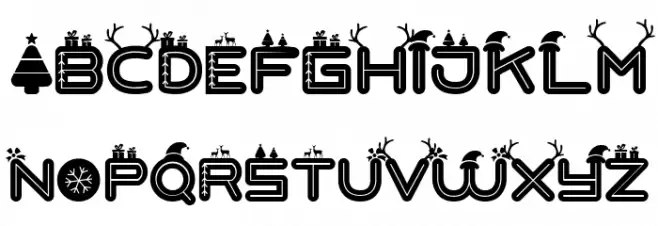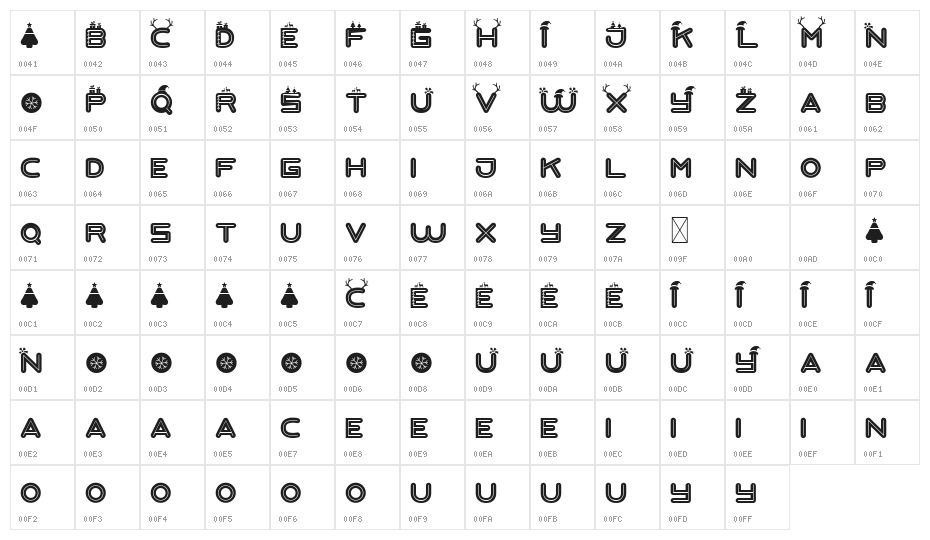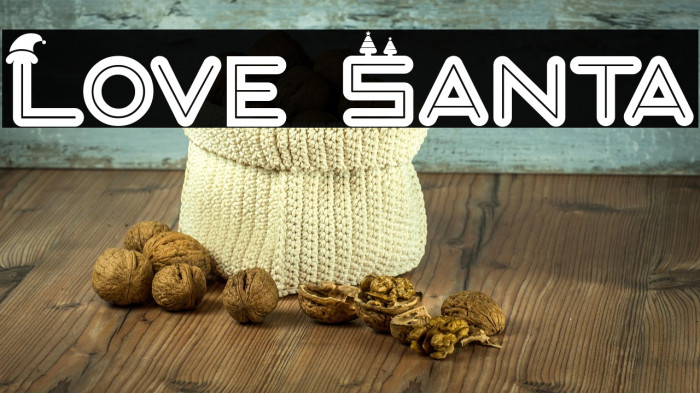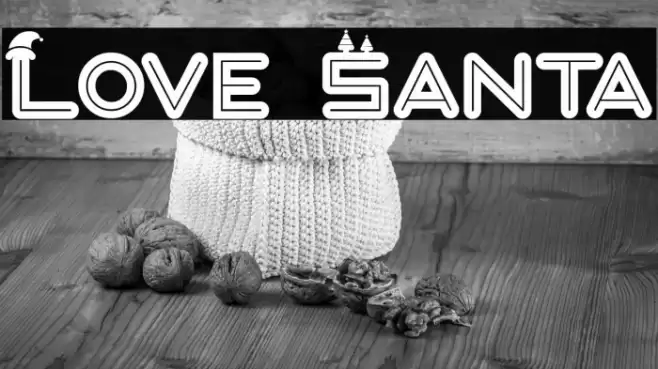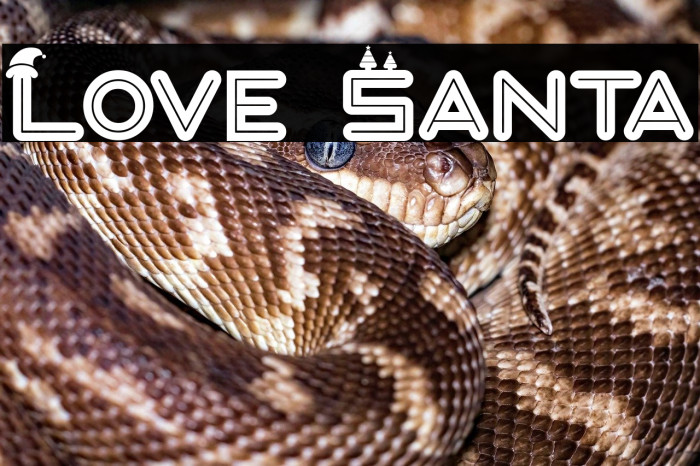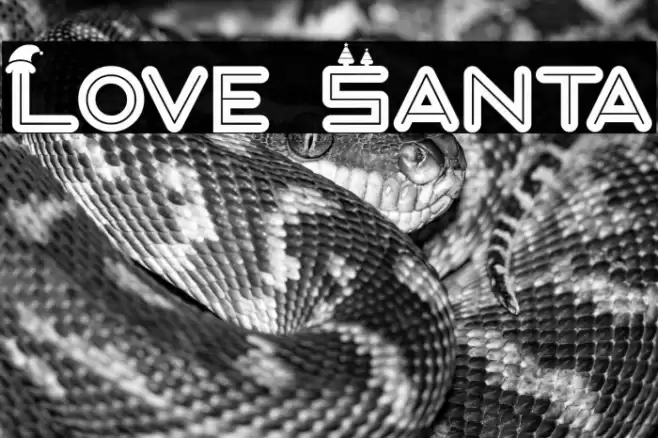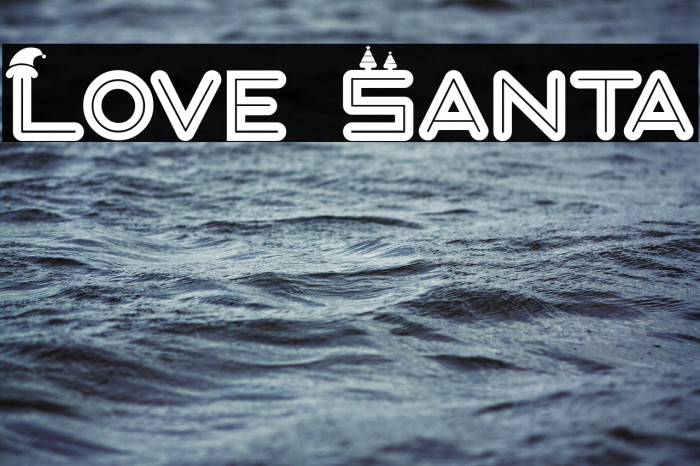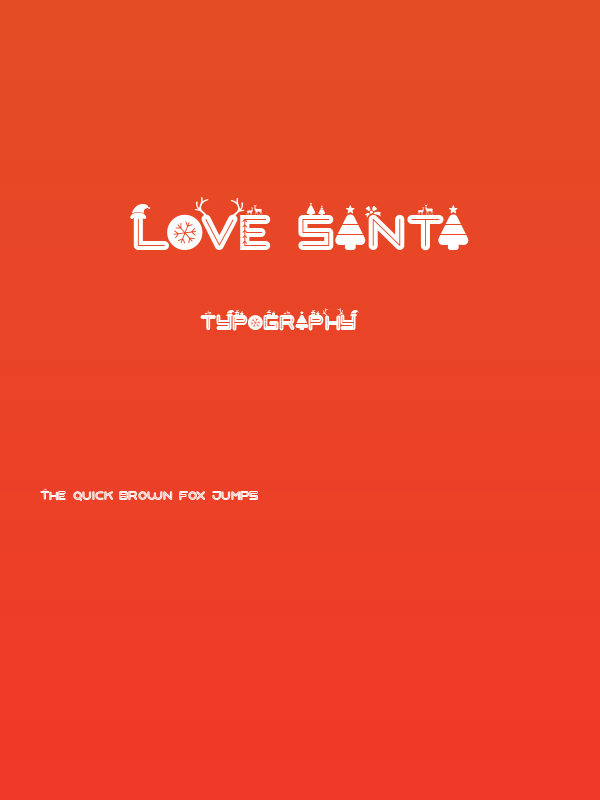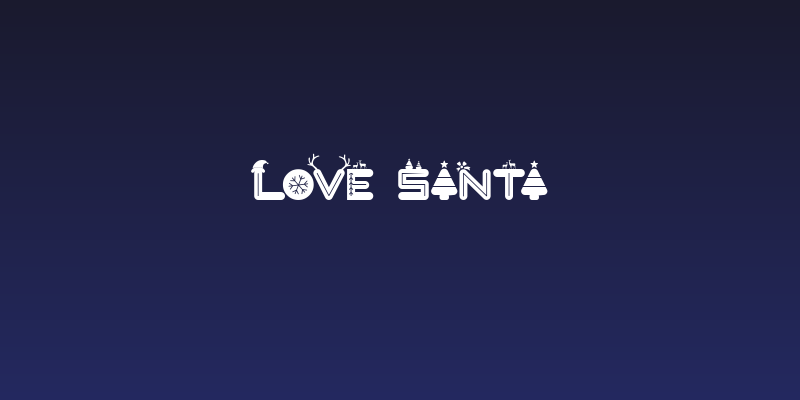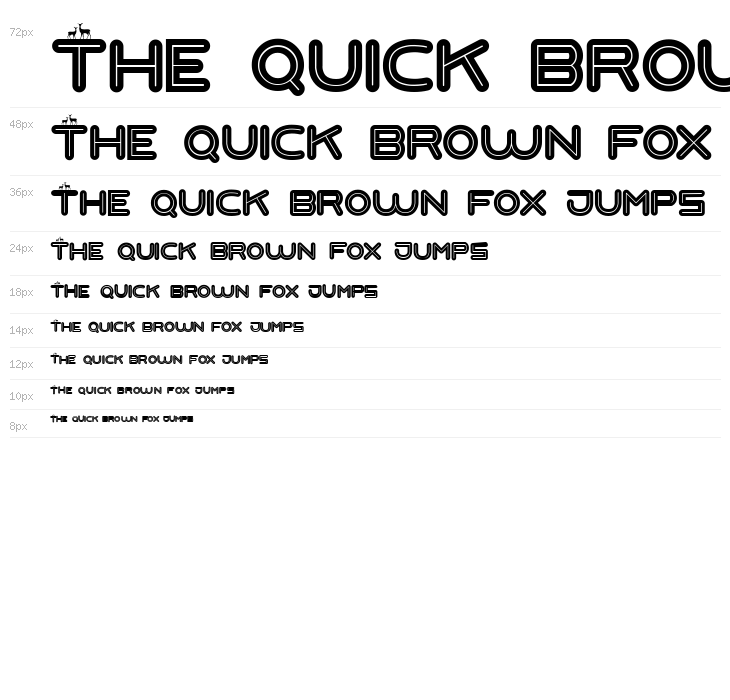
Love Santa Font
Love Santa Description
This playful and festive font features a unique design incorporating Christmas-themed elements such as Santa hats, reindeer antlers, and snowflakes into the letterforms. The uppercase letters are adorned with these decorative motifs, creating a whimsical and joyful appearance. The font maintains a bold and rounded structure, ensuring readability while adding a touch of holiday cheer. The characters are evenly spaced, providing a balanced look that is both eye-catching and functional. This font is perfect for holiday-themed projects, bringing a sense of fun and celebration to any design.
| Proposed Projects | Ideal for holiday cards, festive banners, Christmas party invitations, and seasonal advertisements. |